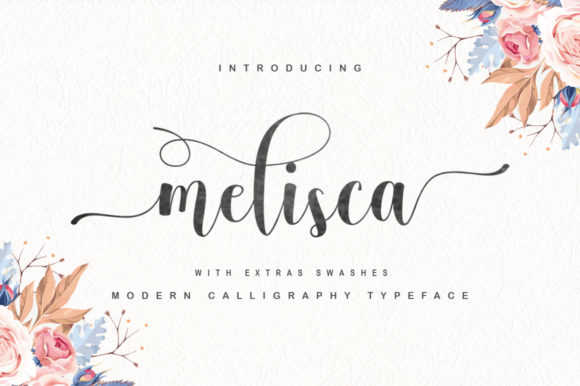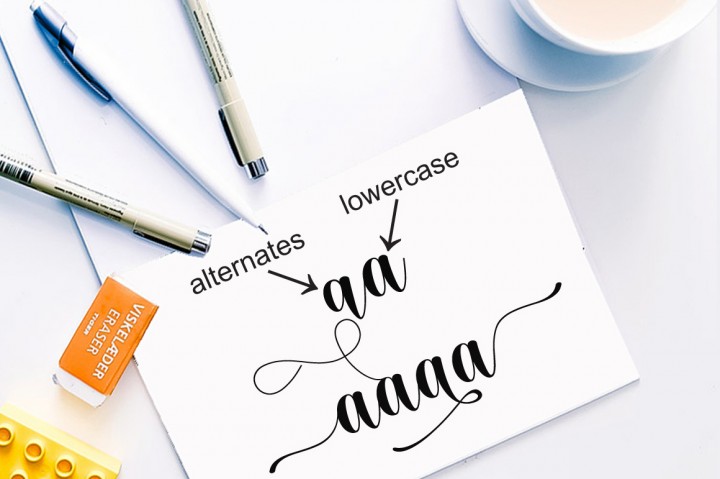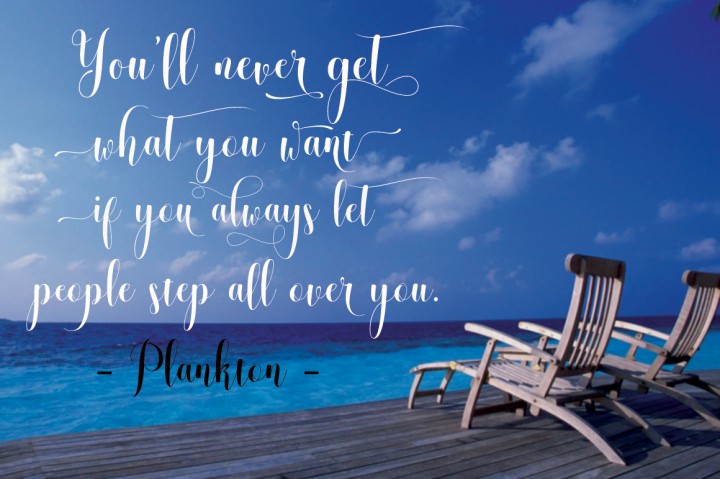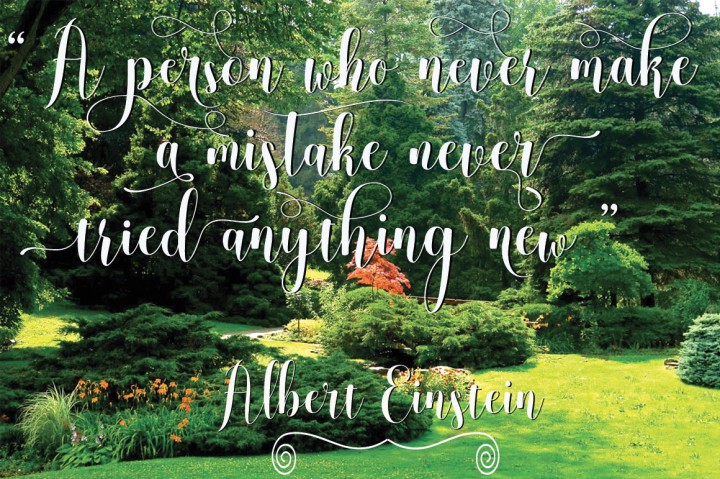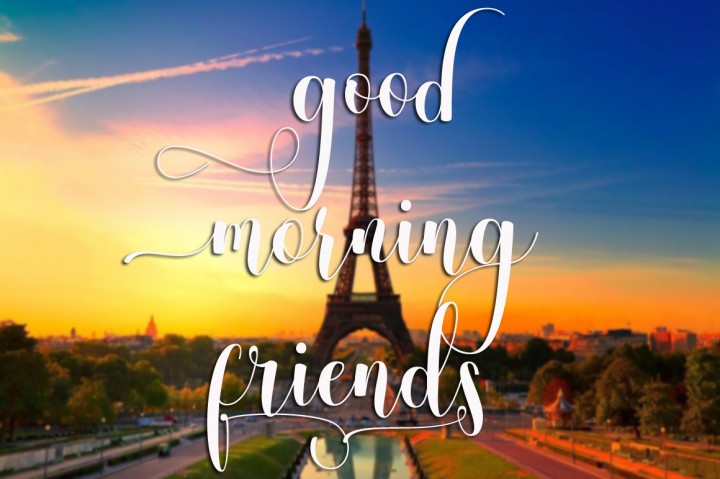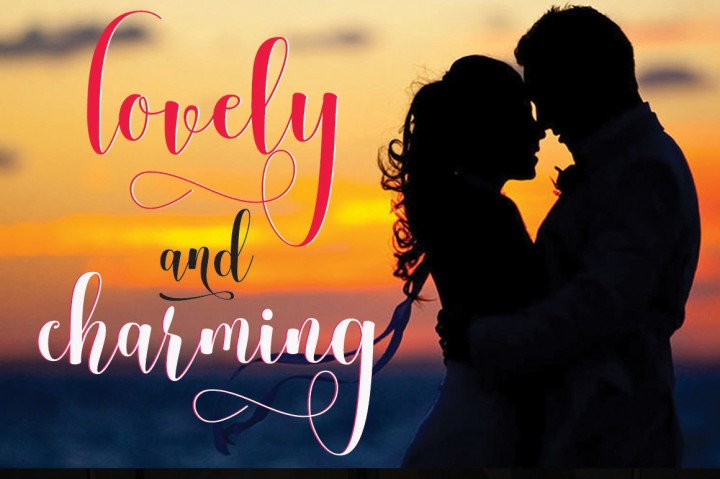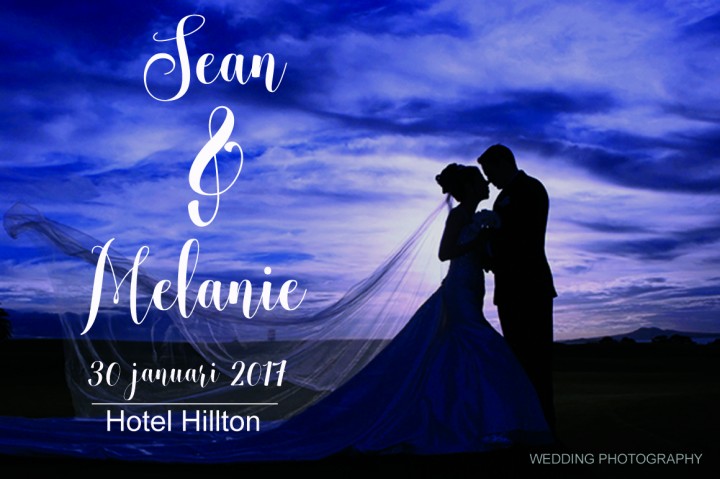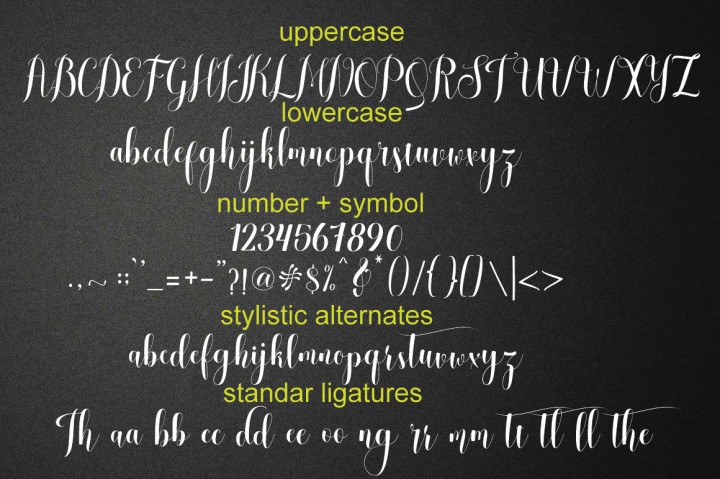
Melisca Font
About Melisca Font
Melisca is a fresh, modern handwritten script font.
This hand-drawn font has a calligraphy style design with decorative characters and features a dancing baseline.